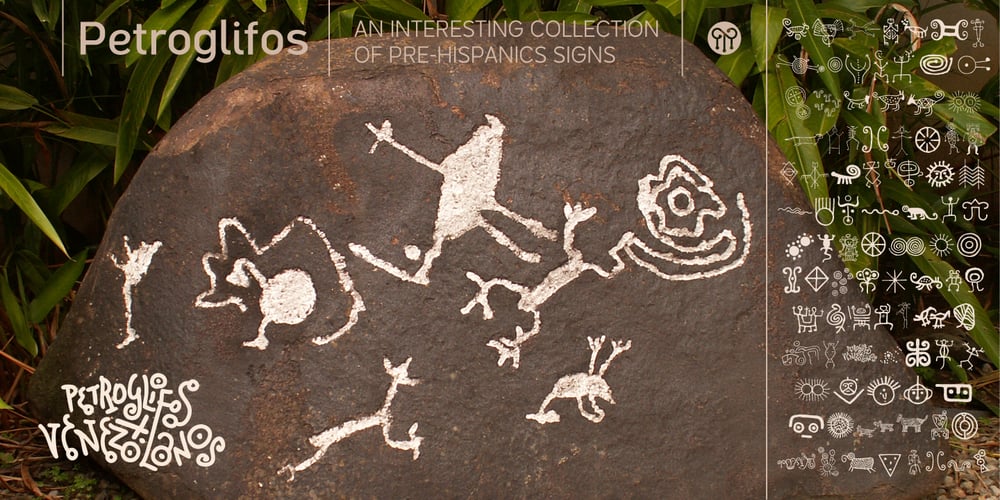
Petroglifos Font Family was designed by John Moore and published by John Moore Type Foundry. Petroglifos contains 1 styles and family package options. “Petroglifos” is a dingbats font as a collection of pre-Hispanic petroglyphs of indigenous ethnic Venezuela, most of them are found in signs carved in stone or painted in caves of the pre-Hispanic period, each icon is an accurate representation of these ancestral signs. Forms are very interesting from a visual, anthropological, historical and semiotic point of view.